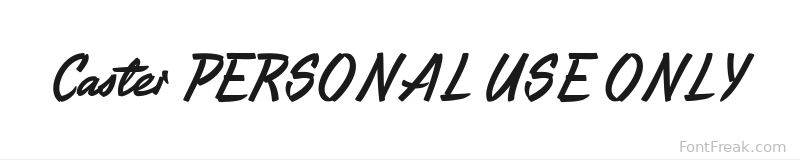
Caster PERSONAL USE ONLY
Caster PERSONAL USE ONLY by Mans Greback is a striking display font that captures attention with its bold, hand-drawn aesthetic. This unique typeface falls under the decorative category, featuring playful, expressive letterforms that exhibit a lively character. The strokes showcase a moderate weight with dynamic contrasts, giving each letter a sense of movement and energy. The spacing is well-balanced, ensuring readability while maintaining its artistic flair. Caster is characterized by its whimsical curves and slightly exaggerated forms, making it perfect for a variety of creative applications.
This font is ideal for wedding invitations, where its charming style can enhance the romantic ambiance. Additionally, it works wonderfully for movie posters, lending a dramatic flair that can captivate audiences. Restaurant menus can benefit from Caster's artistic touch, making dishes stand out and enticing patrons. It also serves well in branding materials for small businesses, helping to create a memorable identity. Content creators will find this font valuable for social media graphics, where eye-catching visuals are essential for engagement.
The target audience for Caster includes graphic designers who appreciate unique typefaces, small business owners looking to establish a distinctive brand presence, and content creators seeking to enhance their visual storytelling.
What sets the Caster PERSONAL USE ONLY font apart is its ability to blend creativity with functionality. Its distinctive style not only grabs attention but also communicates a sense of personality and flair. For those looking to add a playful yet professional touch to their projects, the Caster PERSONAL USE ONLY font free download presents an excellent opportunity to elevate design work while maintaining a unique aesthetic.